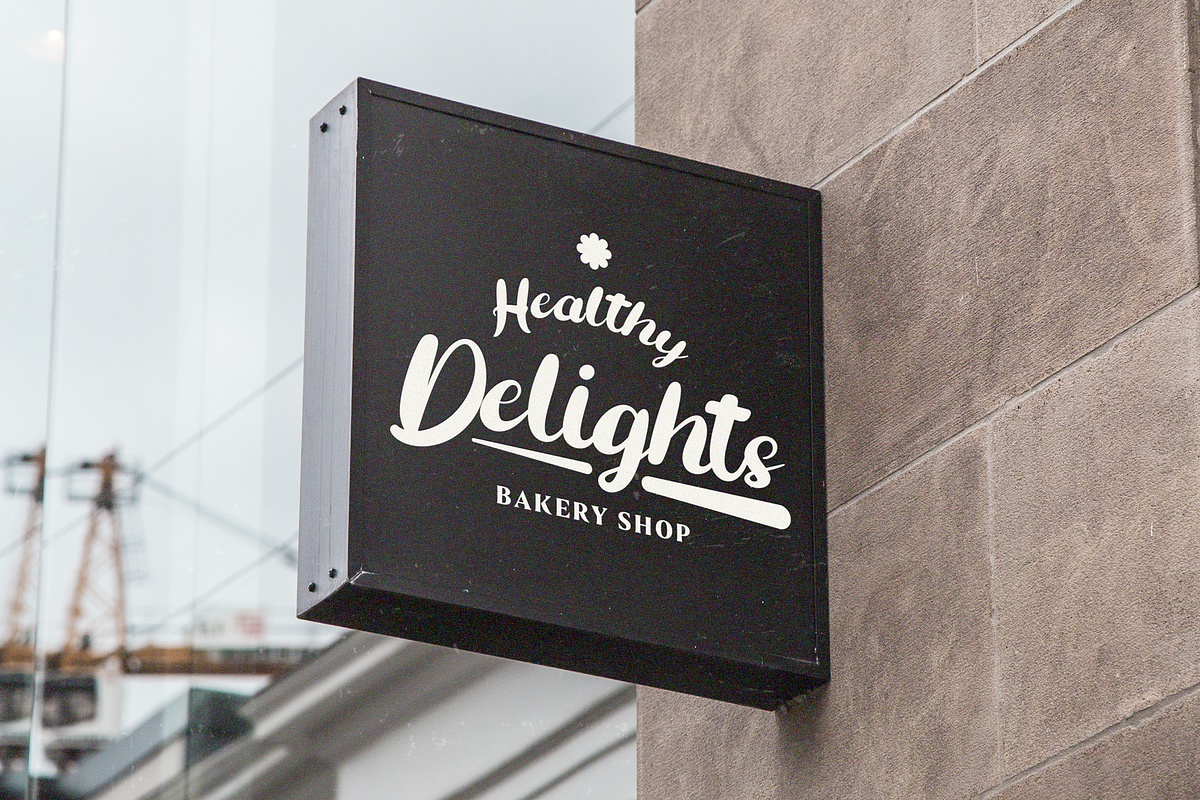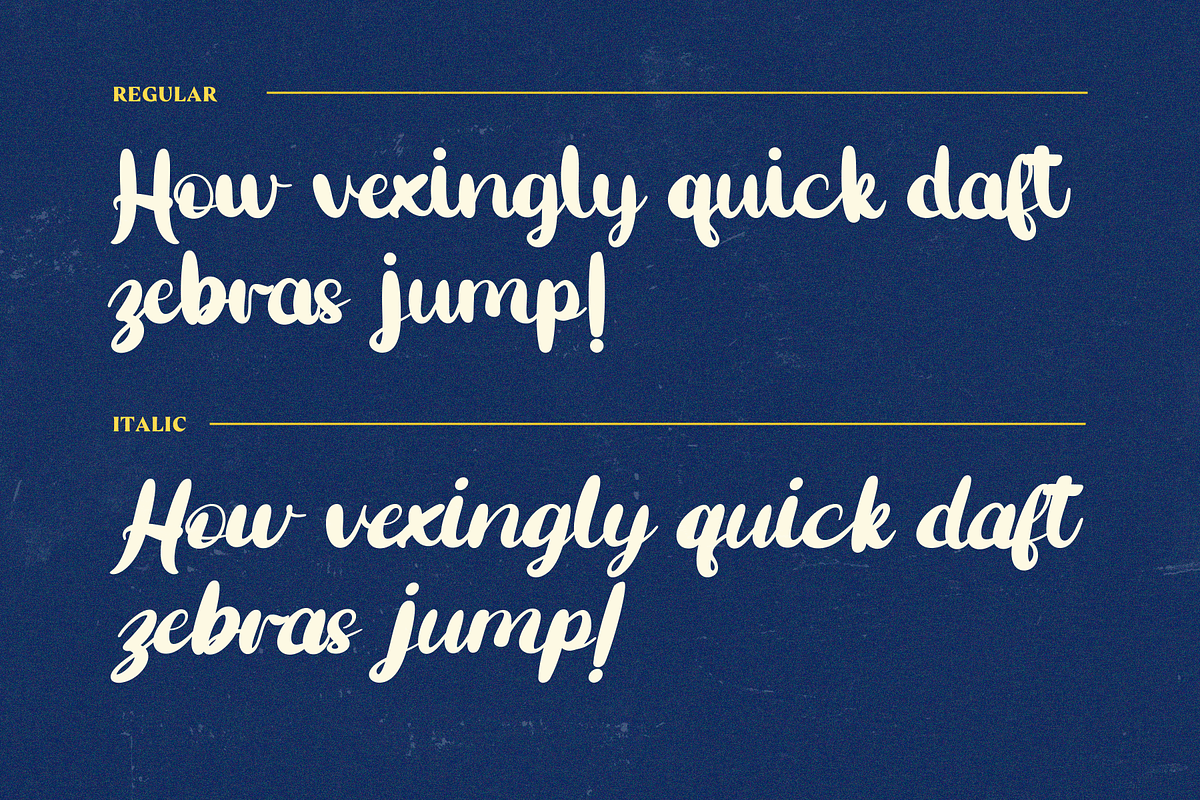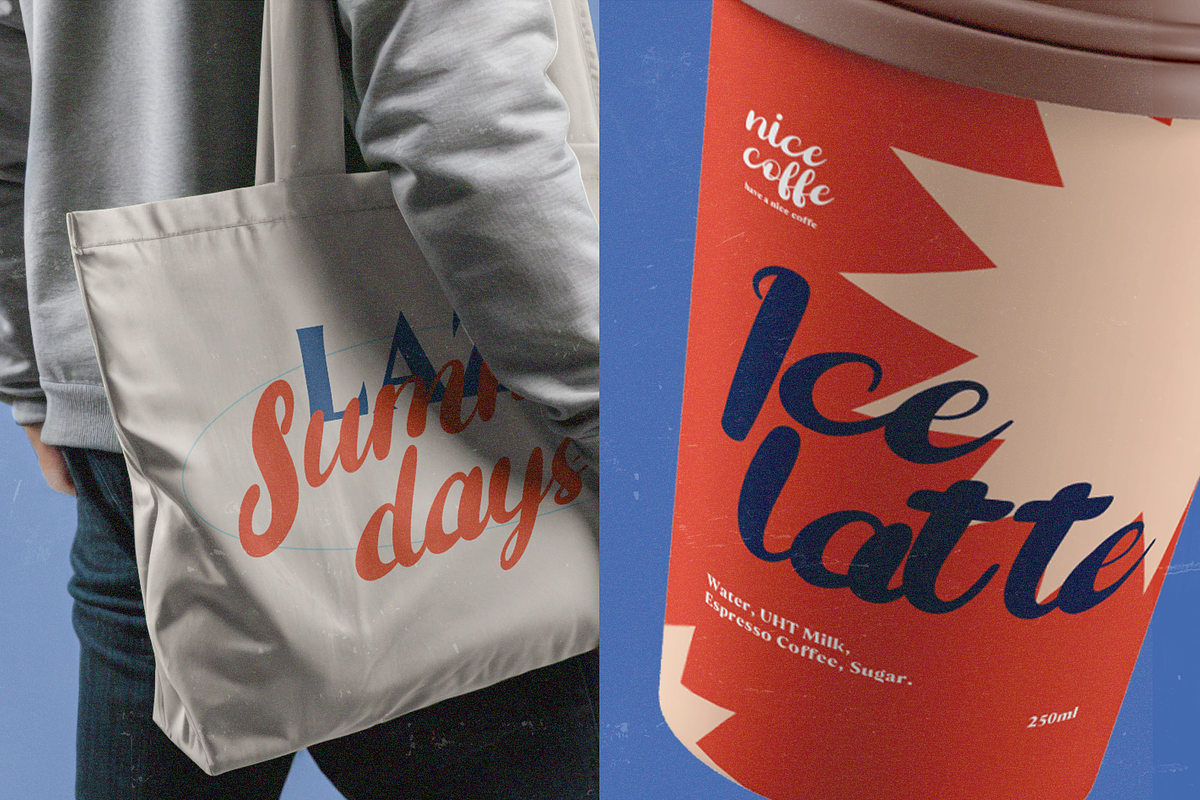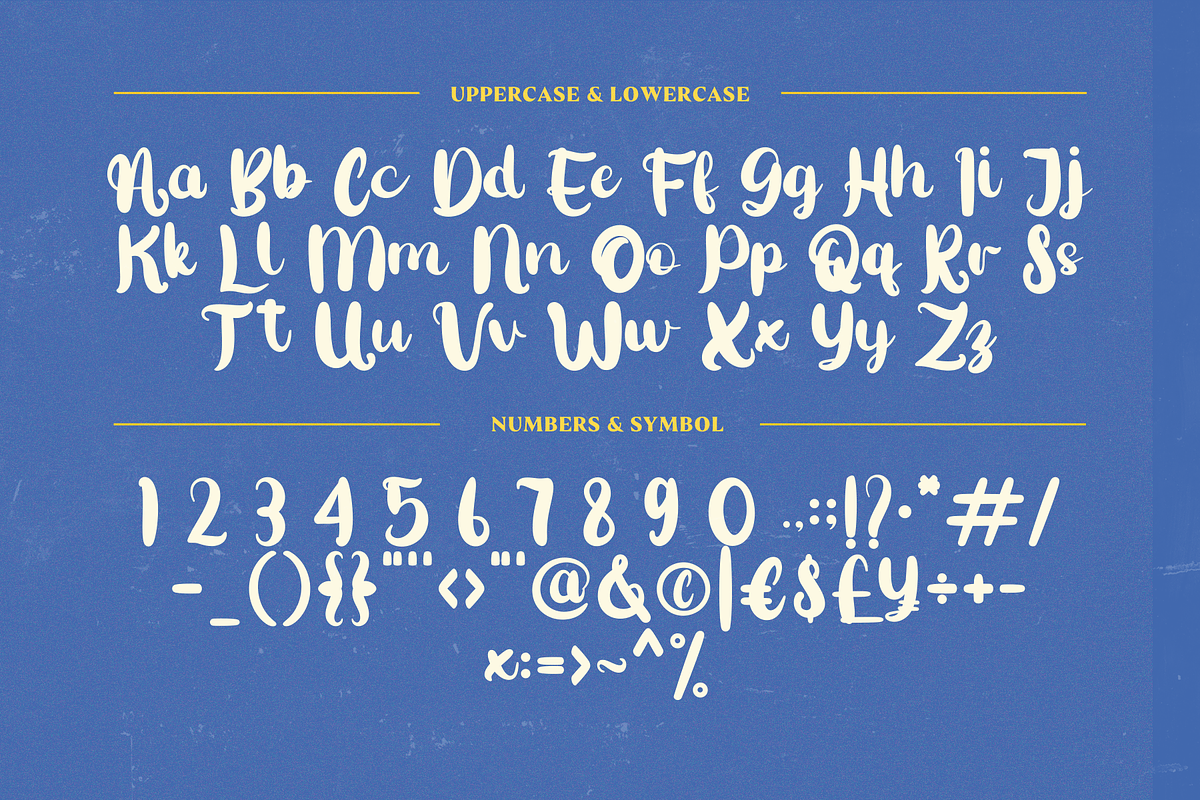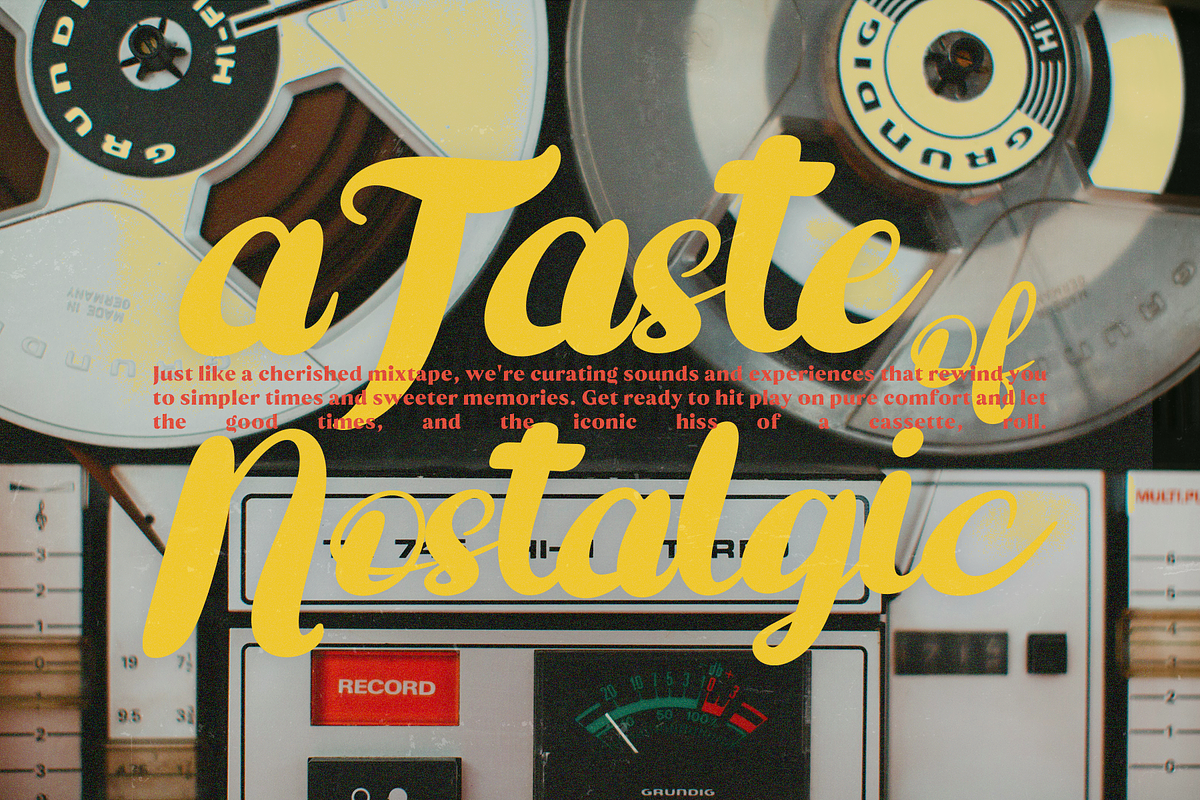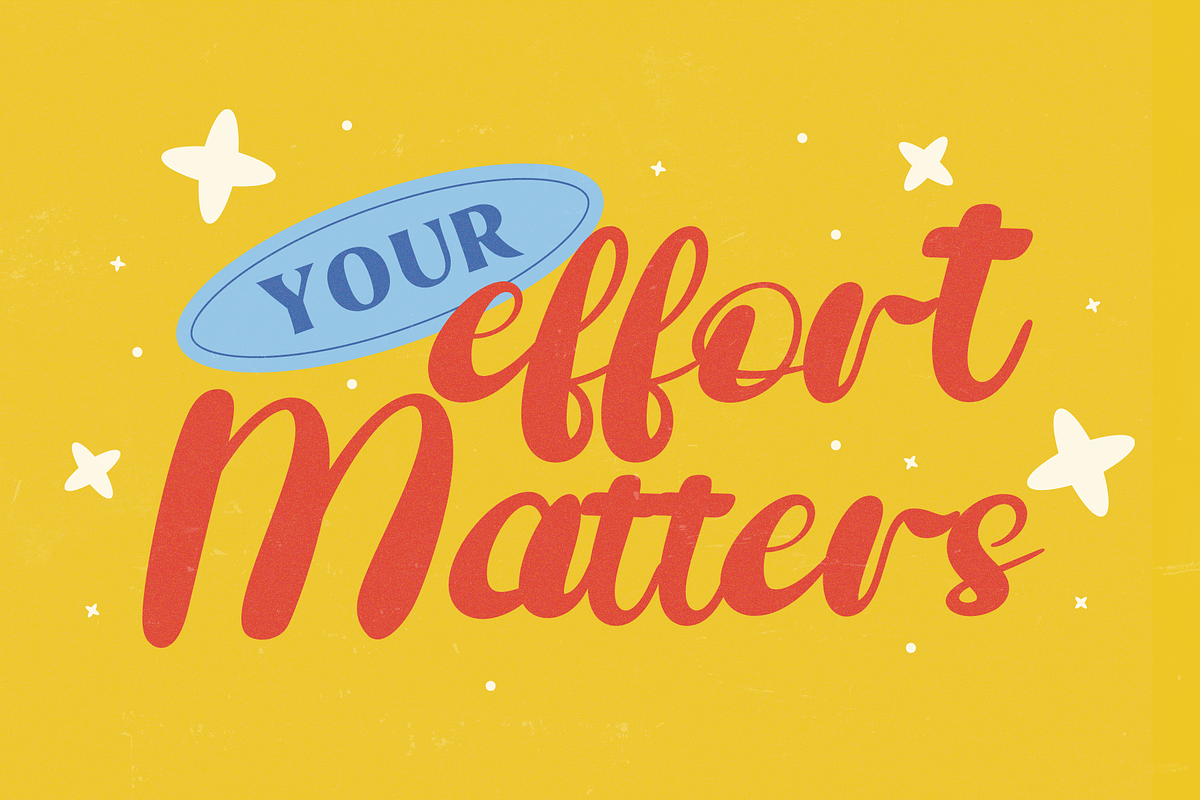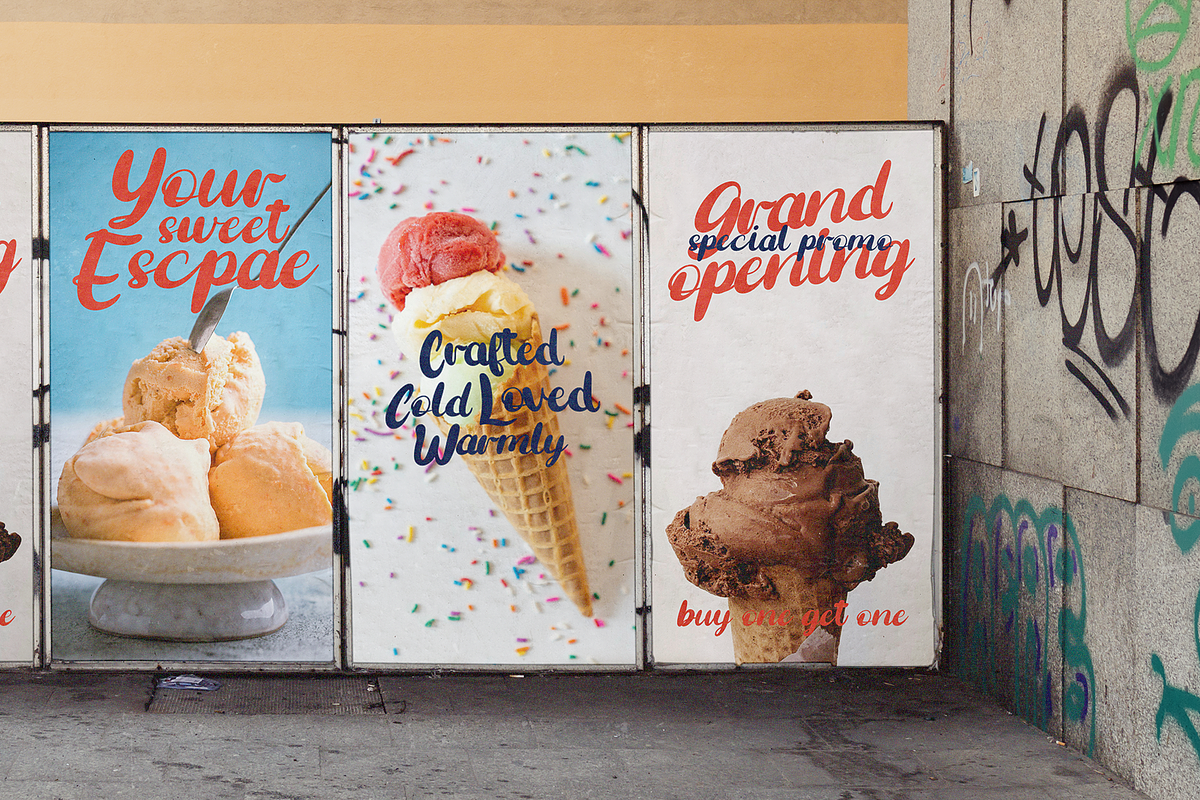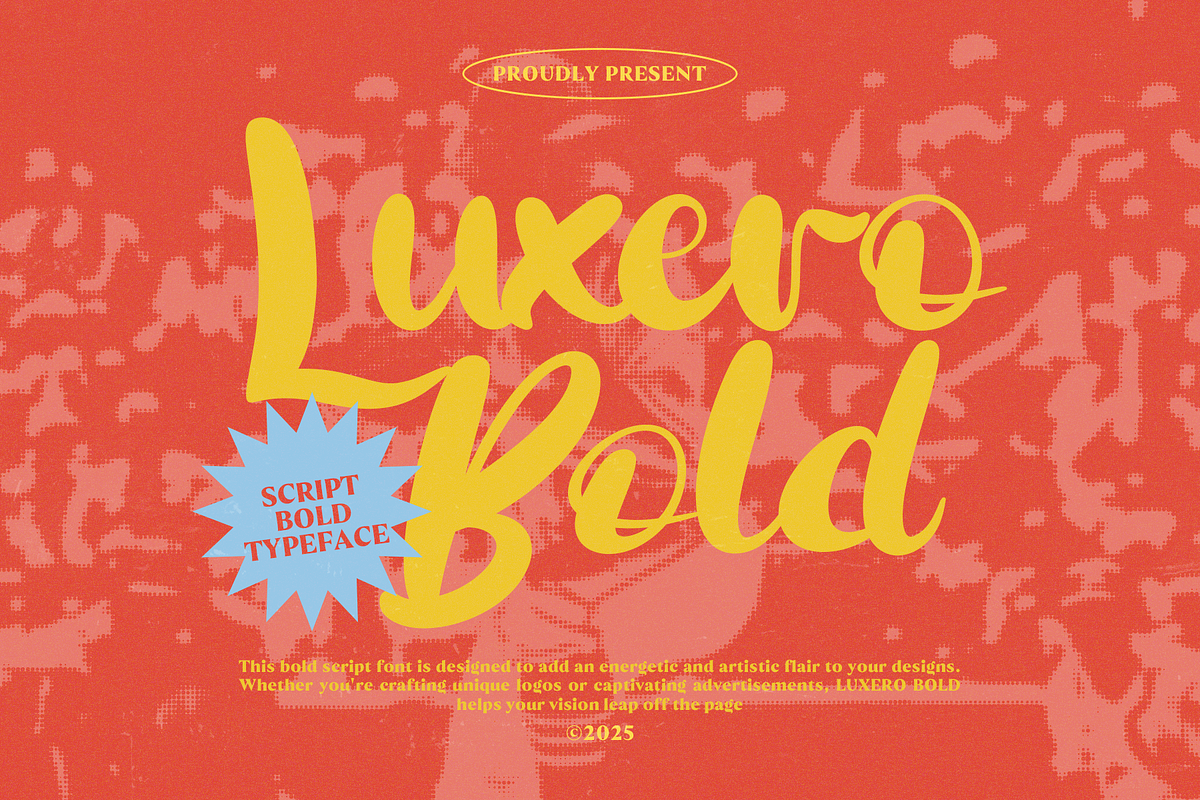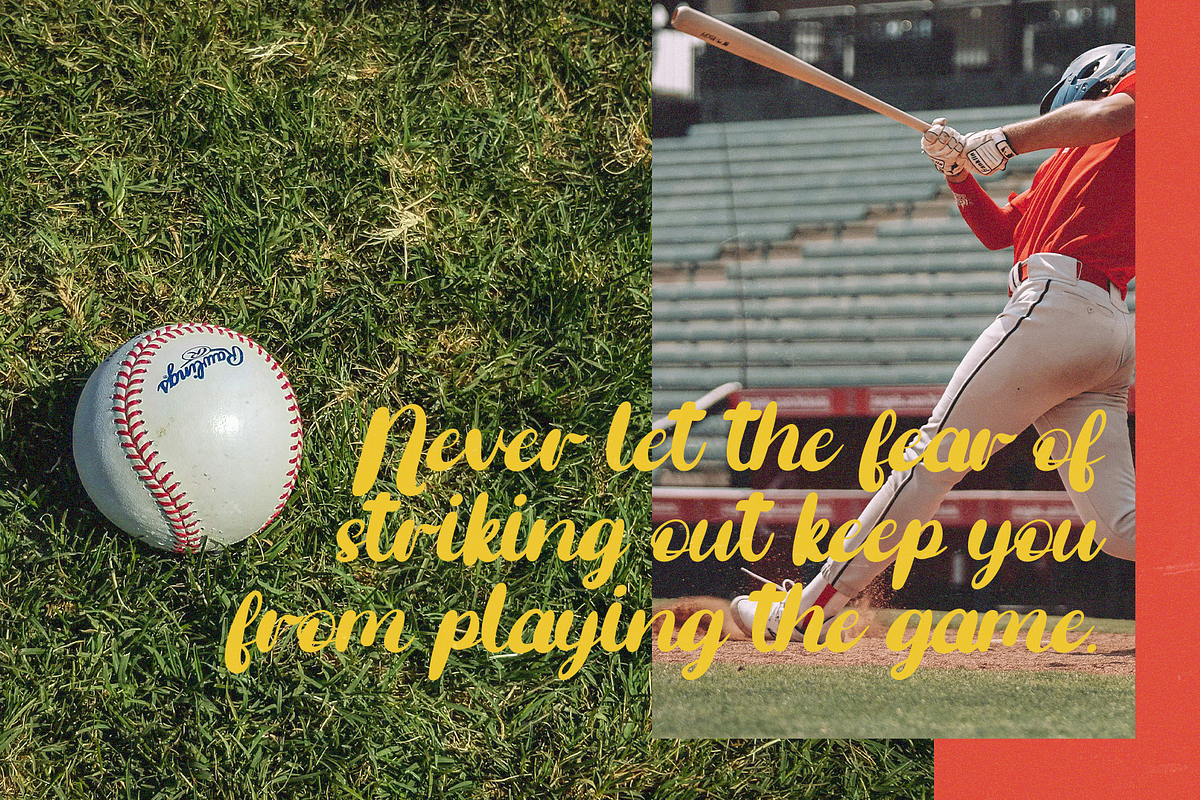
Luxero Bold - Script Bold Font
Luxero Bold is a striking script font designed to energize your visuals with expressive movement and bold personality. Its sweeping curves and thick strokes give it a handcrafted, dynamic character that commands attention in logos, packaging, headlines, posters, and modern branding projects. Inspired by the flair of retro signage and brush lettering, Luxero Bold brings charm and confidence to any design it touches. With complete uppercase and lowercase sets, multilingual support, and smooth curves, it's perfect for creative professionals who want their message to leap off the page.